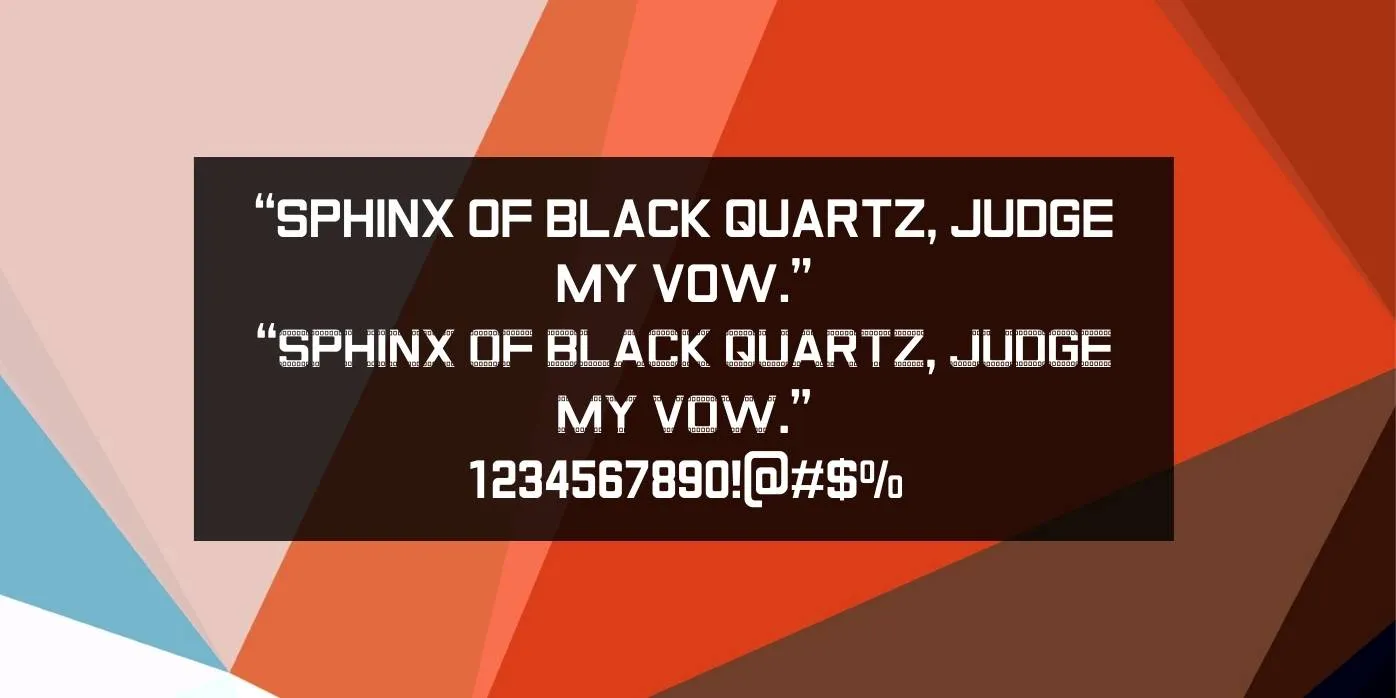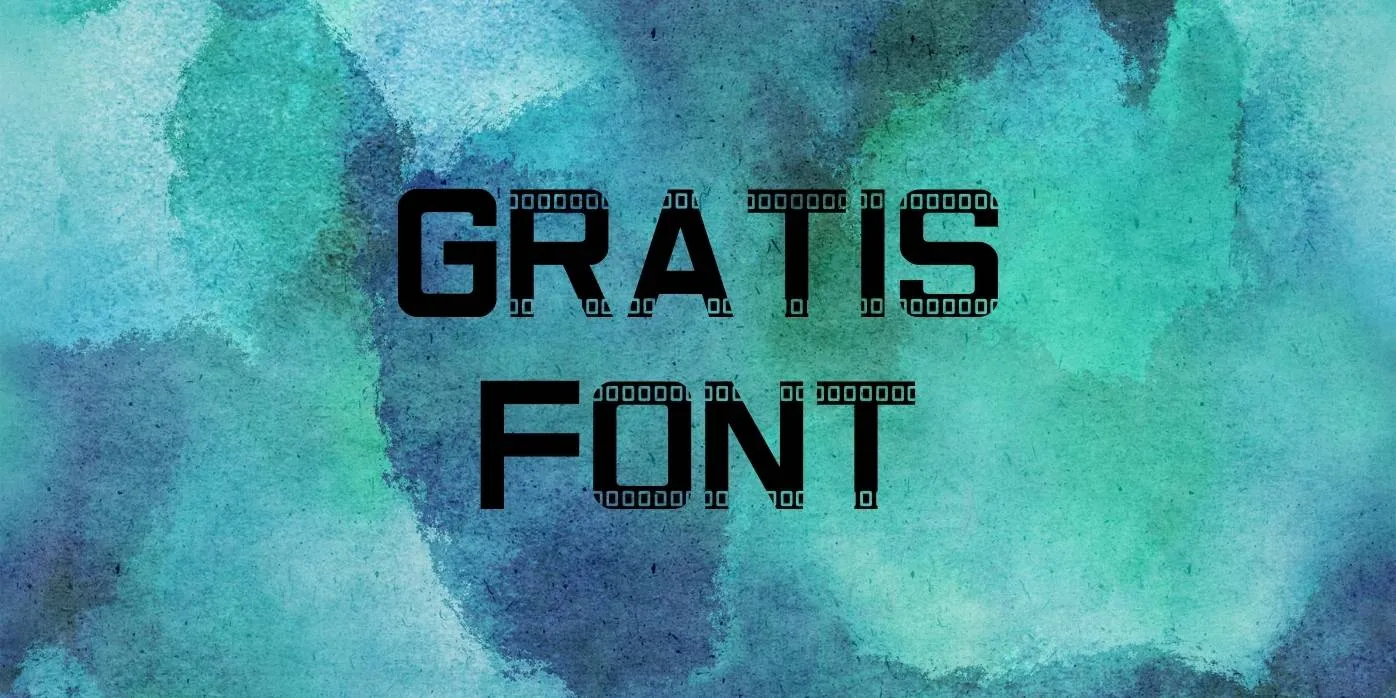
Gratis Font
Here, we present a very stylish typeface named Gratis Font. This awesome font family was developed by 7N types. It belongs to the display font family. You can see its influence on gothic typefaces.
It is well specified by the CSS Family. This stunning font family comprises eight different styles. You can use these fonts for various purposes. You can use them for making posters, titles, logos, headers, etc.